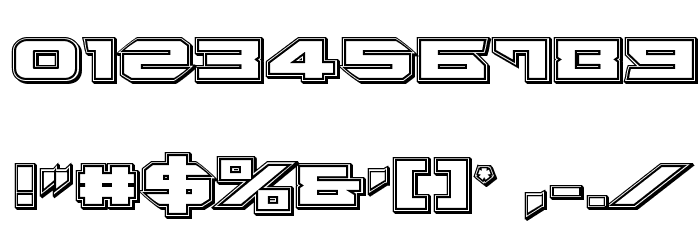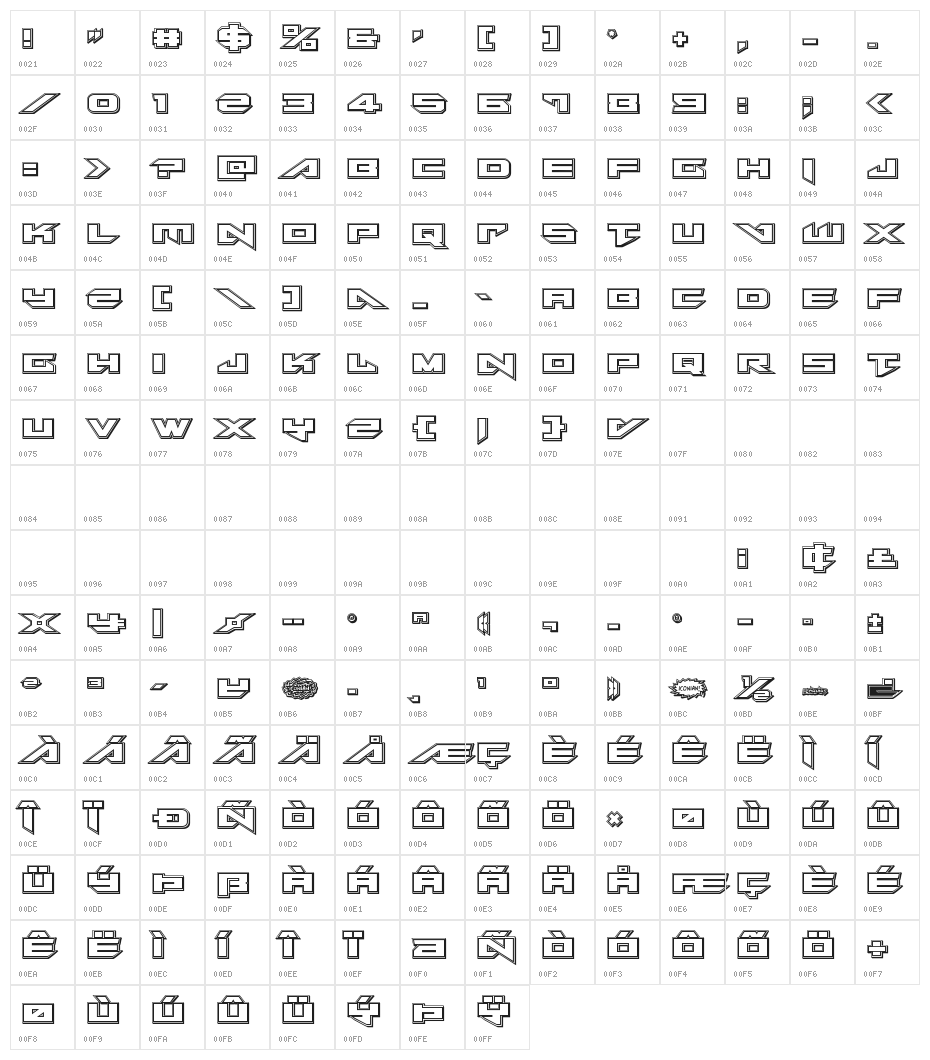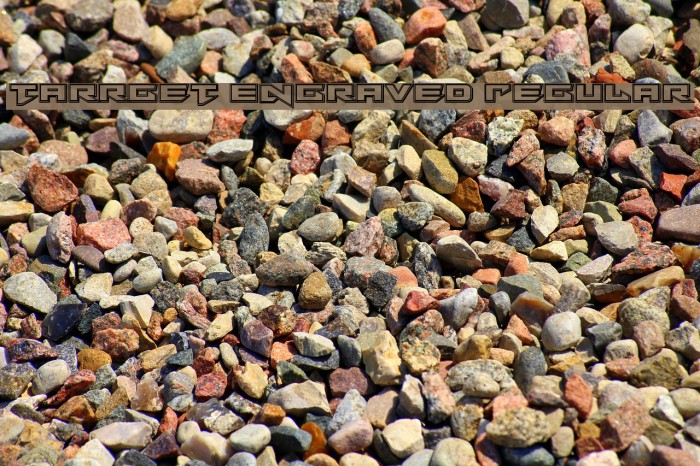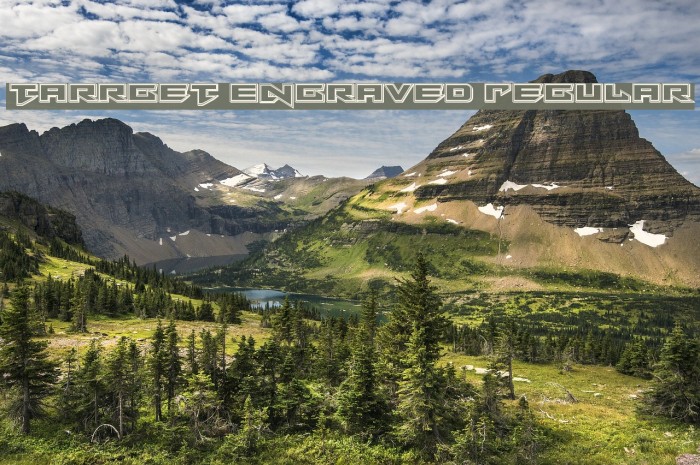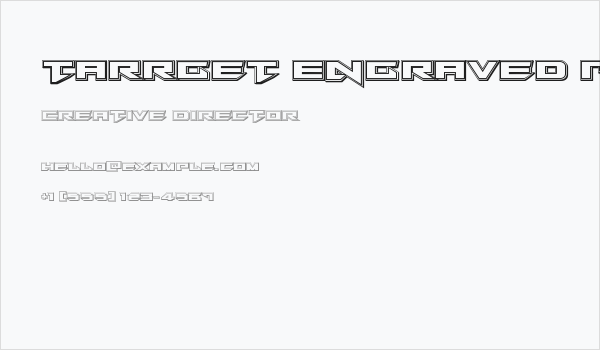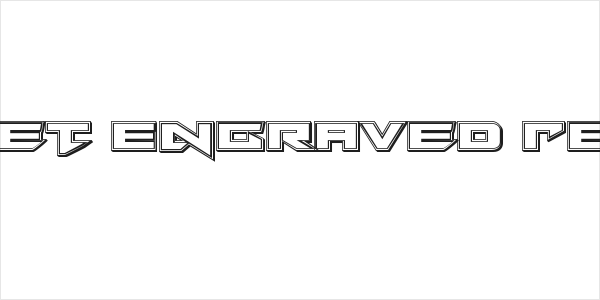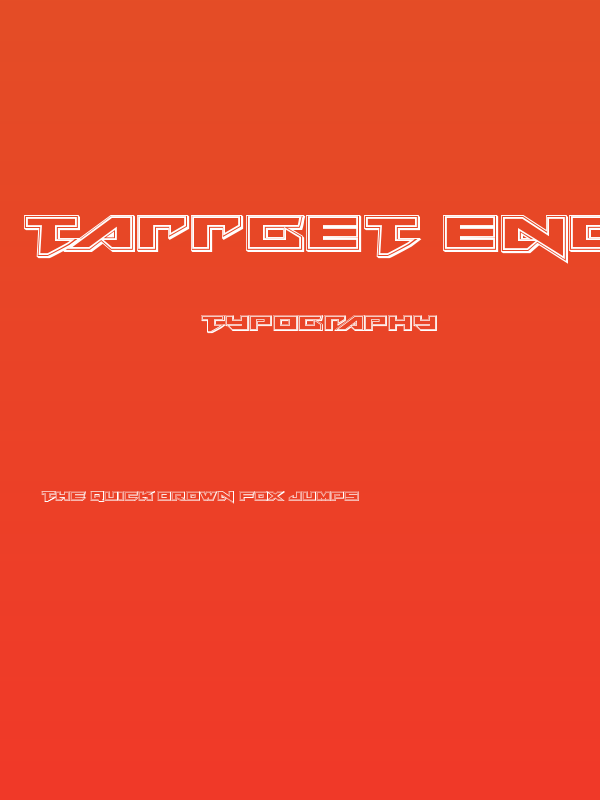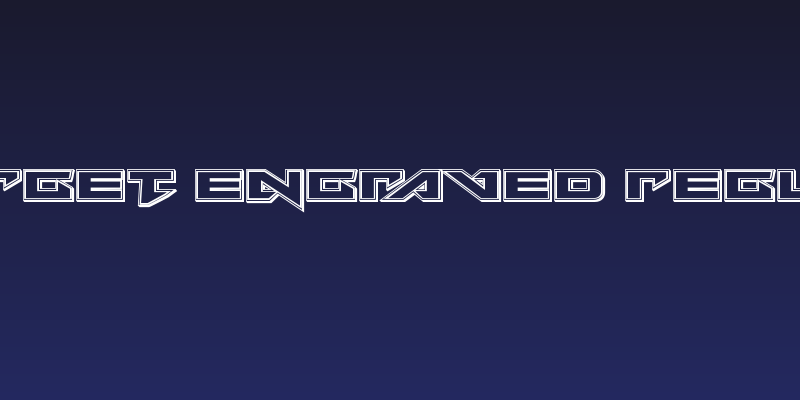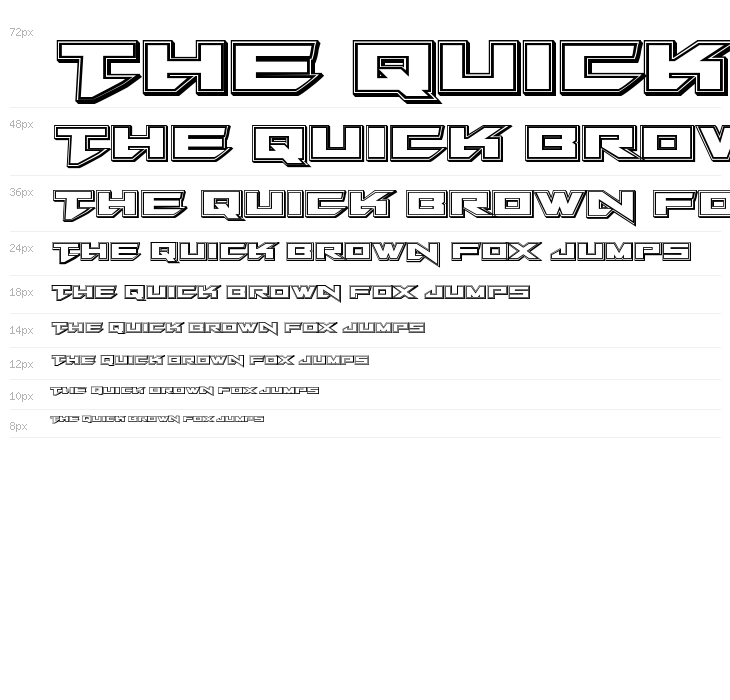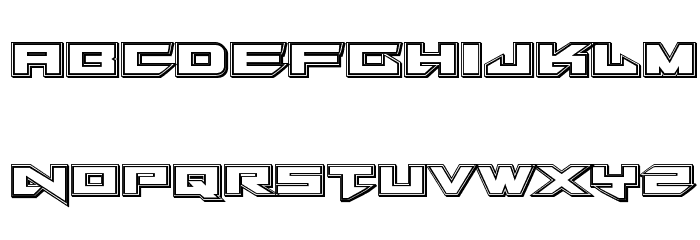
Tarrget Engraved Regular Font
Tarrget Engraved Regular Description
This font features a bold, futuristic design with sharp angles and geometric shapes. Each character is outlined, giving a three-dimensional effect that enhances its engraved appearance. The uppercase letters are particularly striking, with a consistent height and width that create a uniform look. The numbers and special characters maintain the same stylistic elements, ensuring a cohesive visual identity across all glyphs. The font's unique style makes it ideal for projects that require a modern, tech-inspired aesthetic.
| Proposed Projects | Ideal for technology branding, video game titles, sci-fi movie posters, and modern logos. |